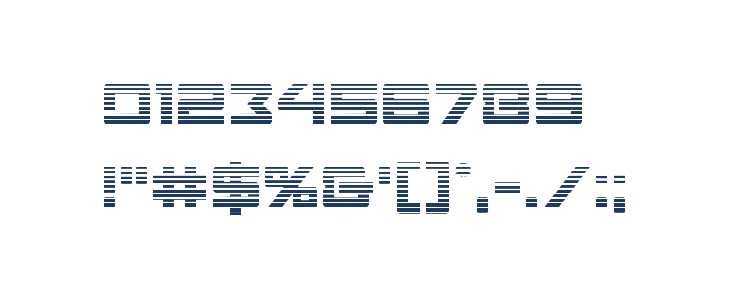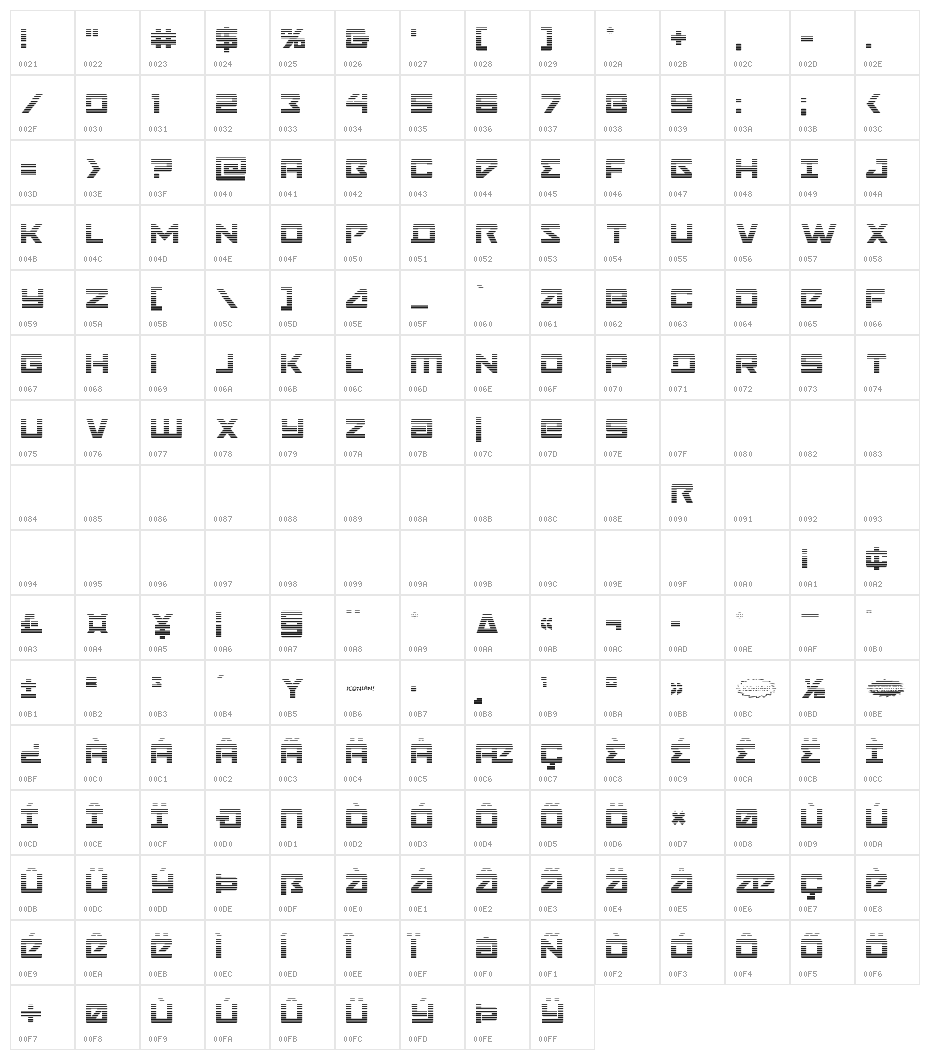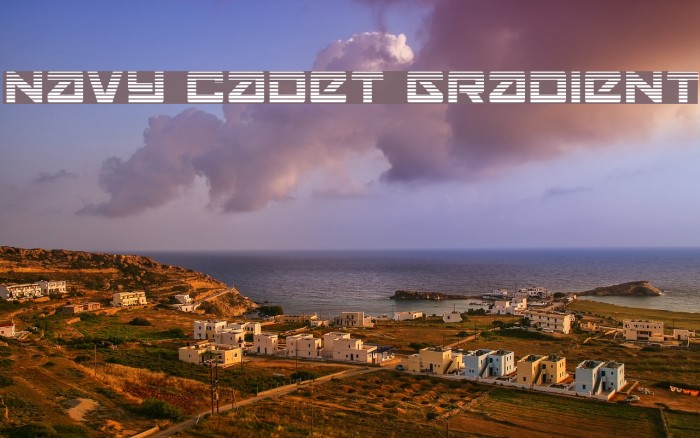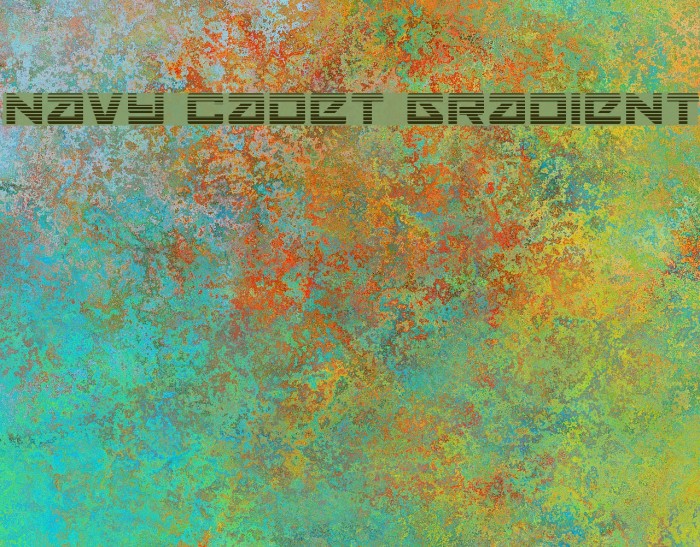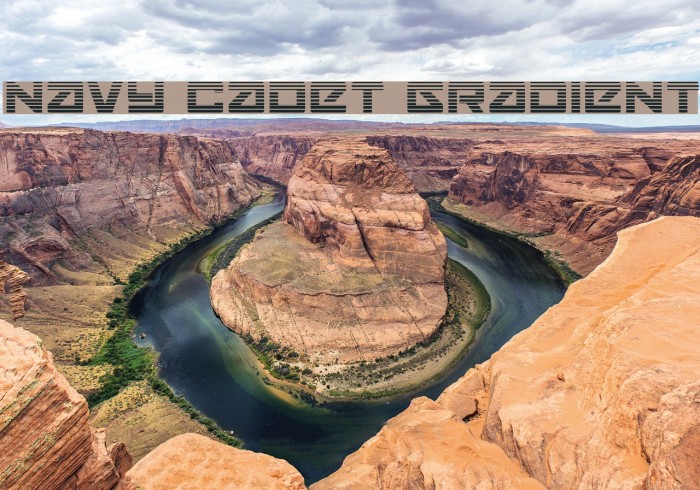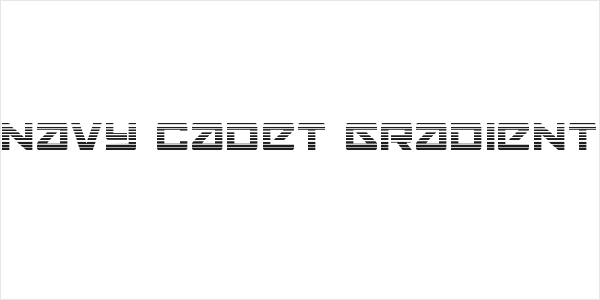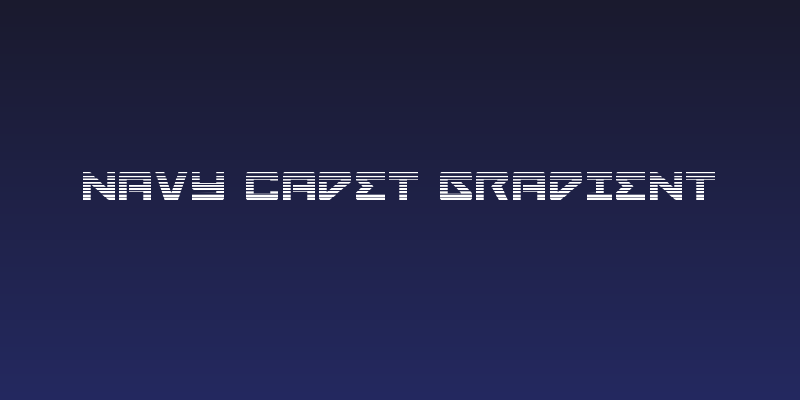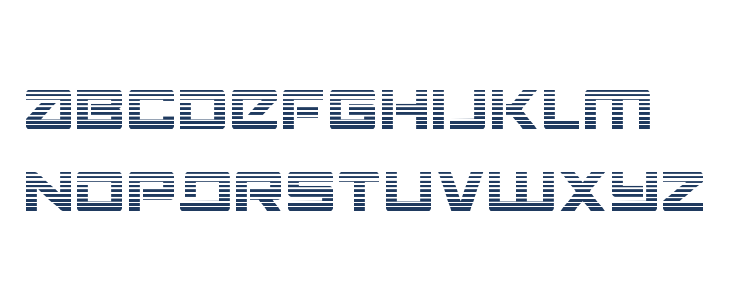
Navy Cadet Gradient Font
Navy Cadet Gradient Description
This font features a bold, futuristic design with a distinct striped pattern running horizontally through each character. The uppercase and lowercase letters maintain a consistent geometric style, emphasizing angular shapes and clean lines. Numbers and special characters follow the same aesthetic, ensuring uniformity across all glyphs. The font's unique appearance makes it ideal for projects that require a modern and eye-catching look, such as technology-related branding or sci-fi themed designs.
| Proposed Projects | Ideal for technology branding, sci-fi themes, video game titles, and modern posters. |